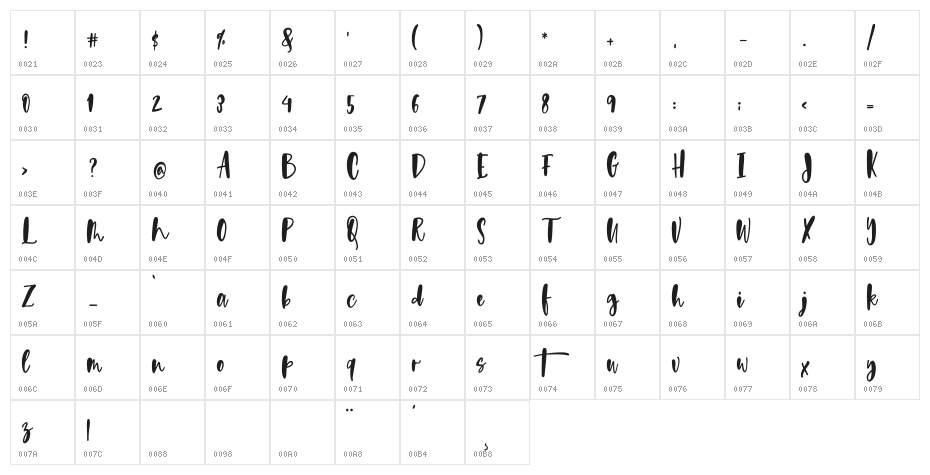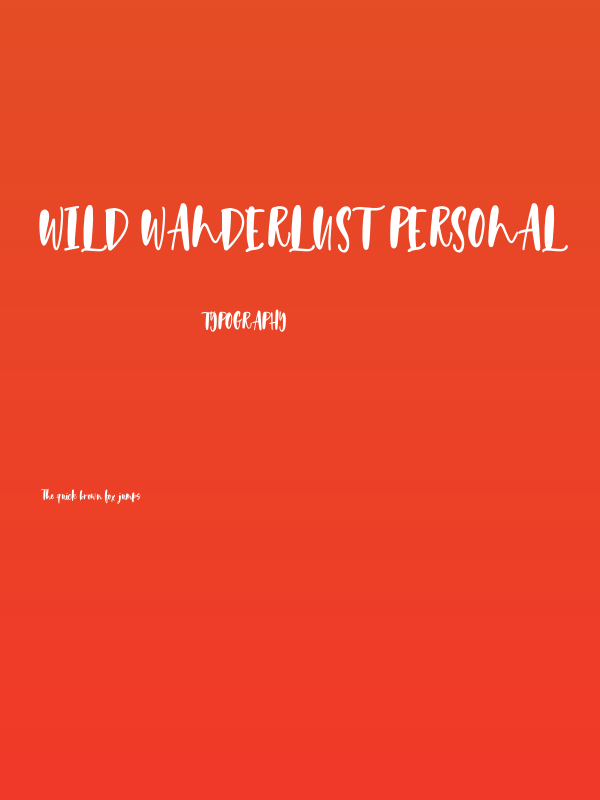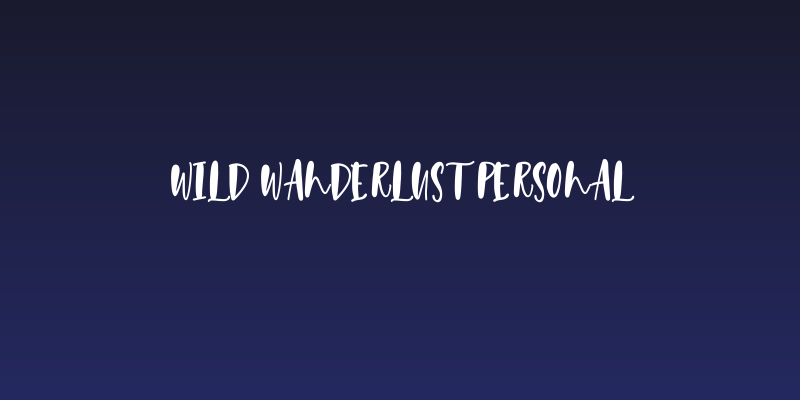
Wild Wanderlust Personal Font
Wild Wanderlust Personal Description
This font features a bold, handwritten style with a playful and energetic vibe. The letters are thick and rounded, giving a sense of warmth and friendliness. The uppercase and lowercase characters maintain a consistent flow, with slight variations that add a personal touch. The numbers and special characters follow the same aesthetic, ensuring uniformity across all elements. The strokes are smooth and fluid, with a medium contrast that enhances readability while maintaining a casual appearance. This font is perfect for projects that require a touch of personality and creativity.
| Overall Style | Playful, Energetic |
| Use Case | Headlines, Logos, Social media graphics |
| Proposed Projects | Ideal for greeting cards, invitations, branding, and social media graphics. |